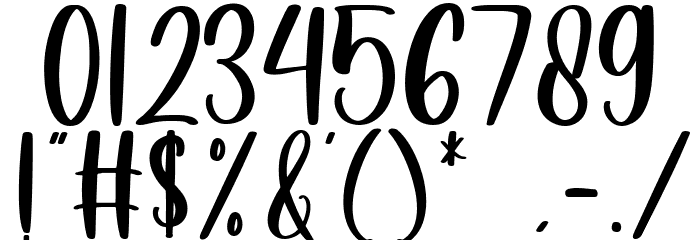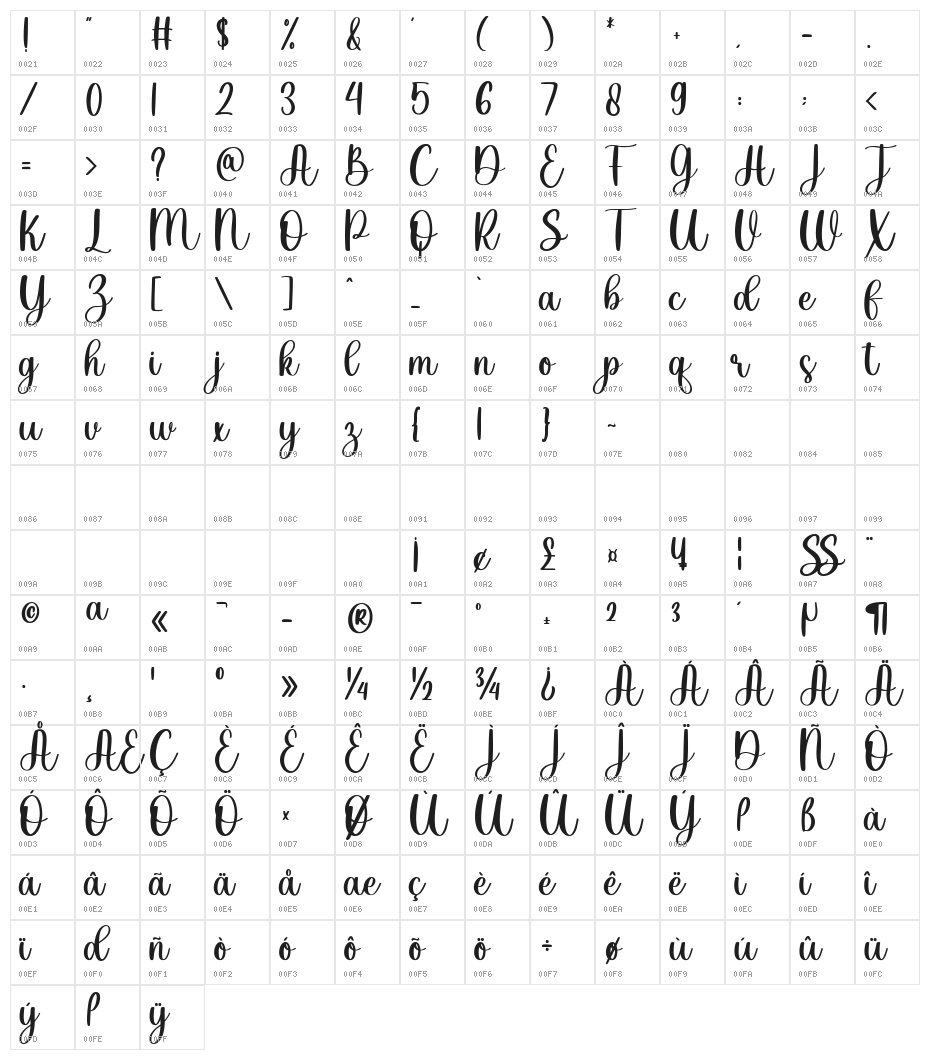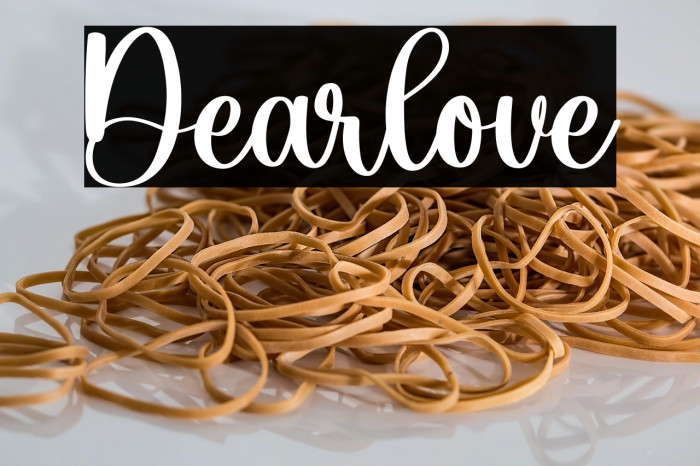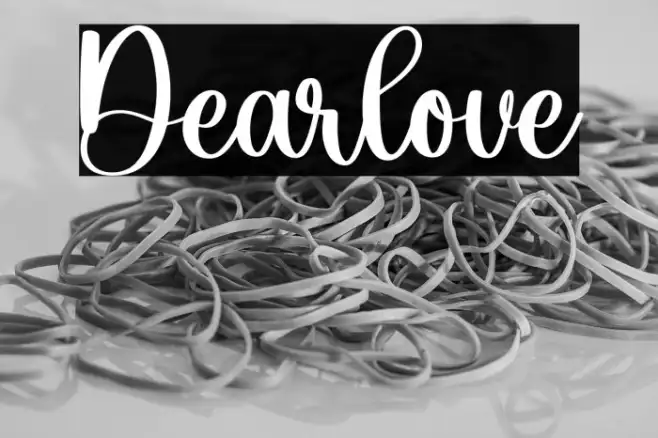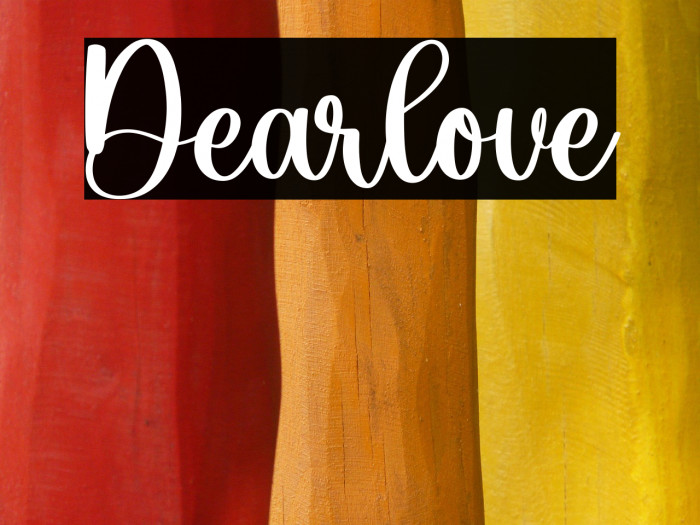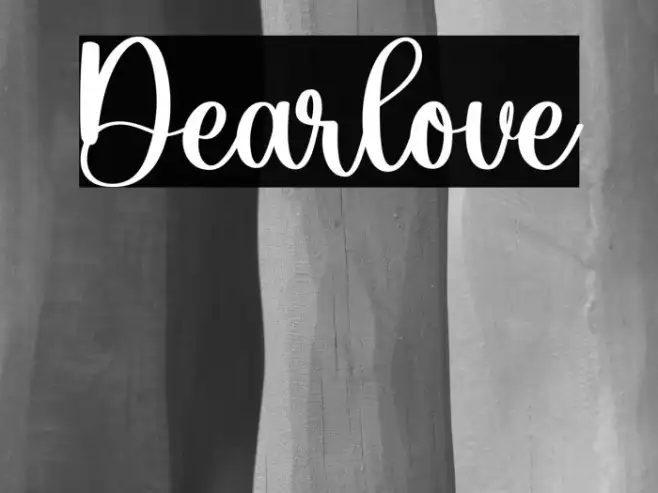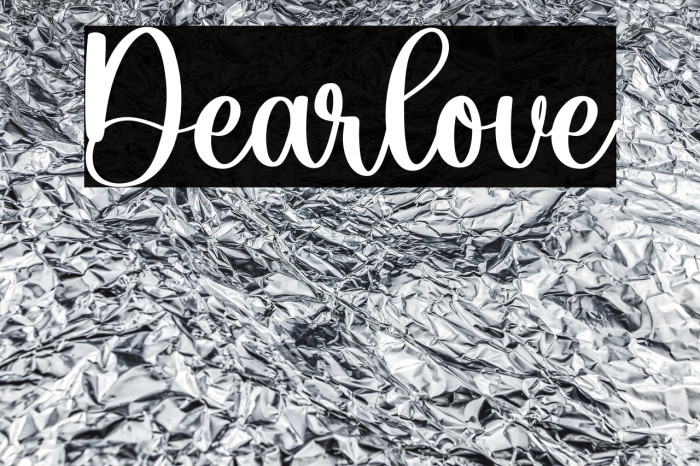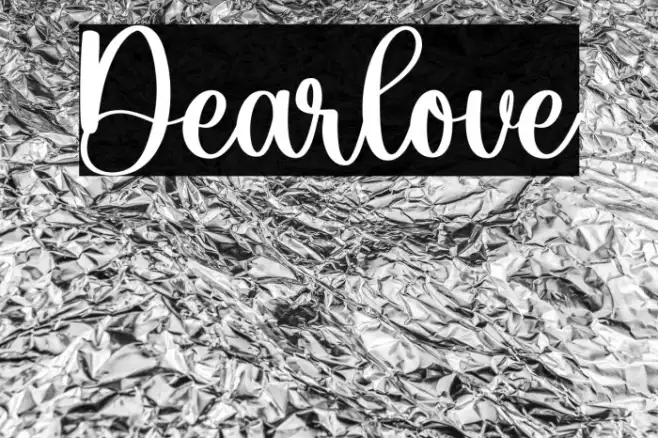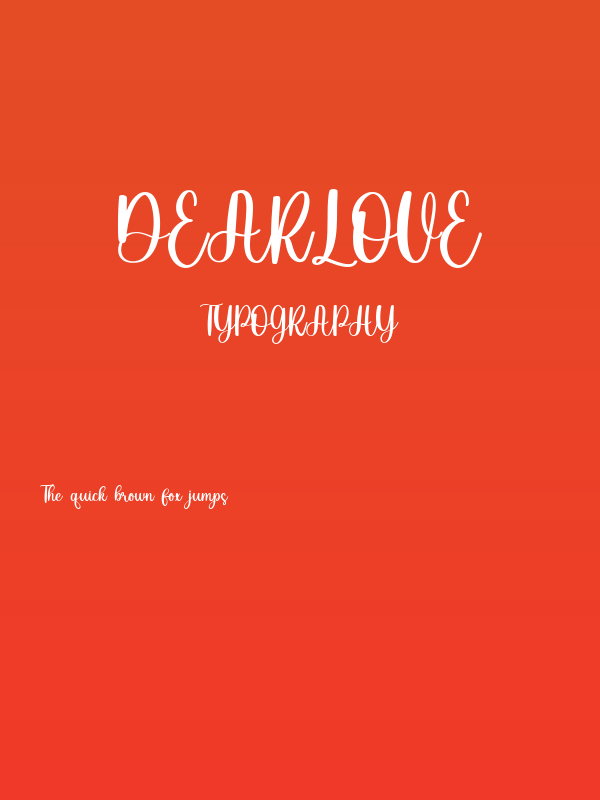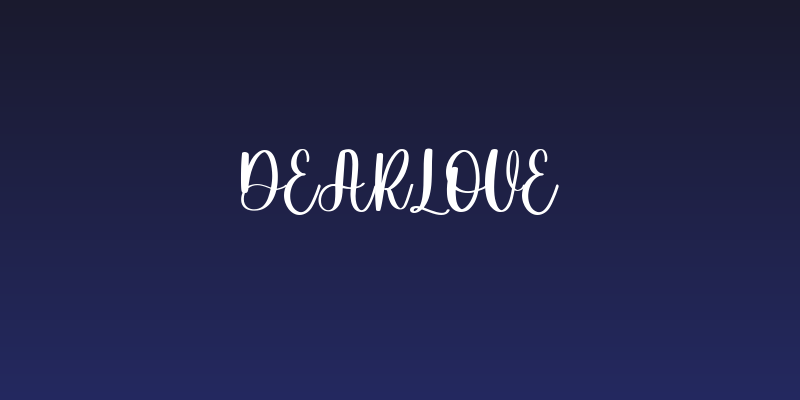
Dearlove Font
Dearlove Description
This font features a playful and elegant script style, characterized by its flowing, cursive letterforms. The uppercase letters are bold and expressive, with a consistent stroke width that adds a sense of uniformity. The lowercase letters maintain a similar style, with smooth curves and loops that enhance its handwritten appearance. The numbers are clear and legible, matching the overall aesthetic of the font. Special characters are included, maintaining the same decorative flair. This font is perfect for projects that require a personal touch, such as invitations, greeting cards, or branding materials. Its distinct style makes it stand out, while still being versatile enough for various design needs.
| Proposed Projects | Ideal for invitations, greeting cards, branding, and decorative projects. |